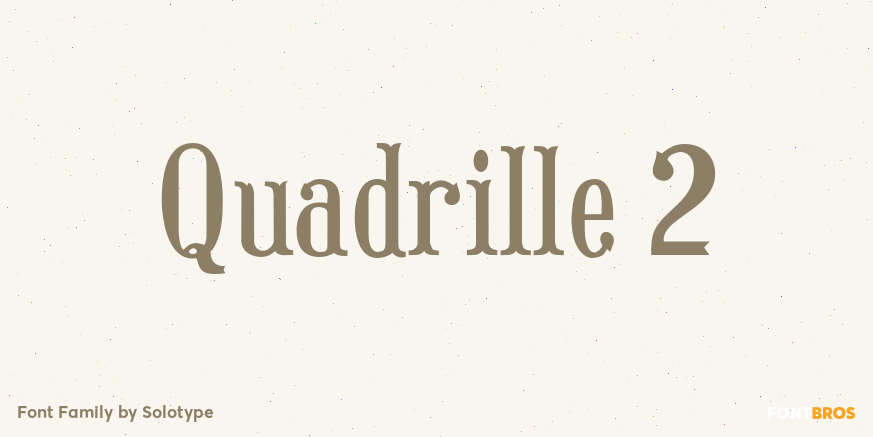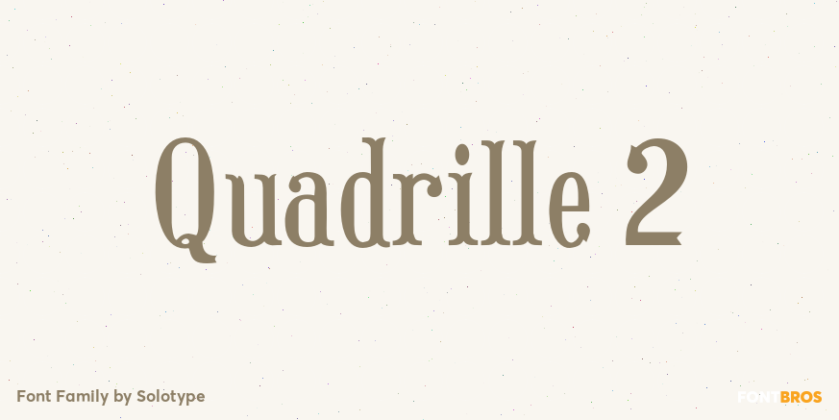
Quadrille 2
About Quadrille 2
This is a simplified Tuscan, free from excessive ruffles and flourishes. Types of this general design began to appear in profusion in the 1830, and continued as a popular form until the end of the nineteenth century. We added the lowercase to this one…